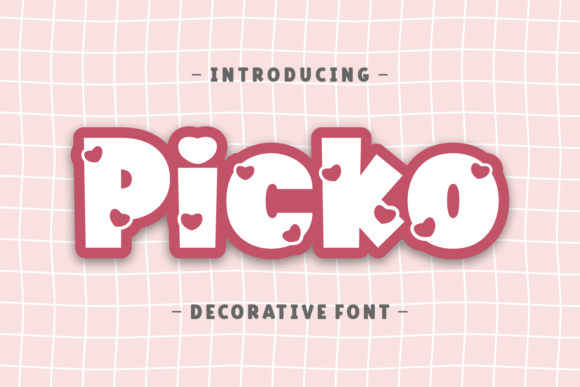
Introducing Picko Font, a decorative handwritten font that will capture your heart and ignite your creativity. This enchanting font, brought to life by Feri (7NTypes), brings a touch of romance, joy, and playfulness to your designs. With its adorable hearts and whimsical flair, Picko Font adds a sprinkle of love and cheer to any project.
Unleash your creativity and transform your designs into heartfelt expressions of love. Picture your invitations and greeting cards adorned with Picko Font, carrying messages of affection and joy. Design posters that radiate warmth and charm, drawing hearts and smiles wherever they're displayed. From wedding invitations to birthday wishes and everything in between, Picko Font adds a special touch of magic to every occasion.
Picko Font is not just a font; it's an experience. Its charming characters dance across your designs, bringing a sense of wonder and delight. Let your imagination soar as you create projects that touch the hearts of your audience. With Picko Font, your designs will be infused with love, whimsy, and a dash of enchantment.